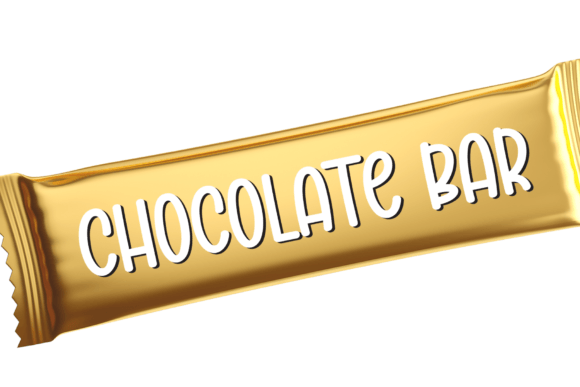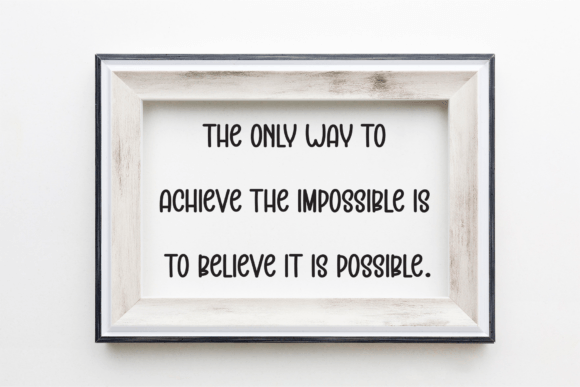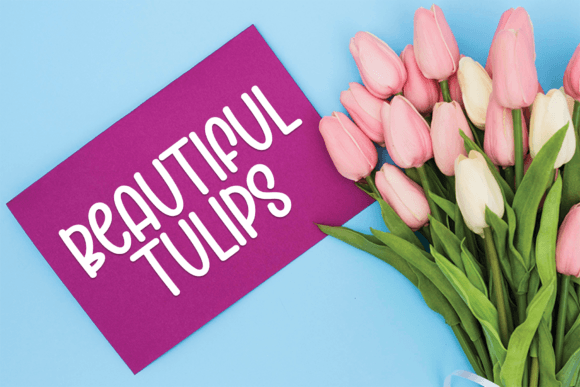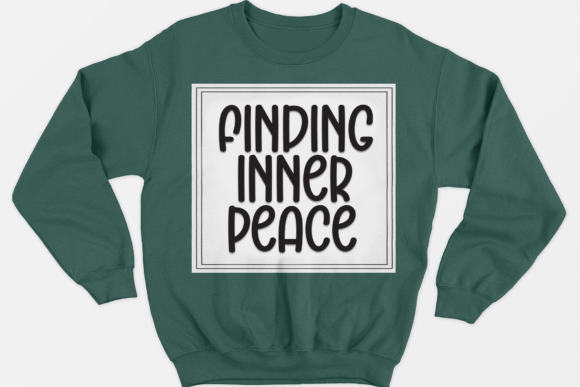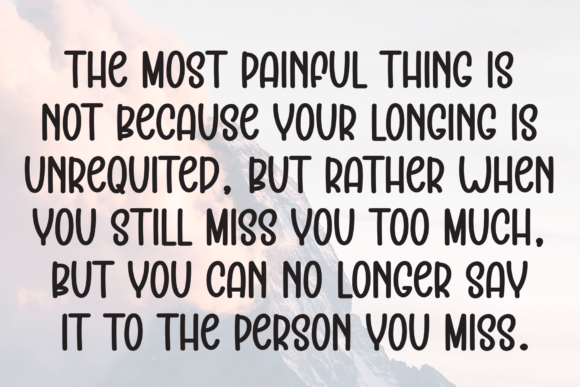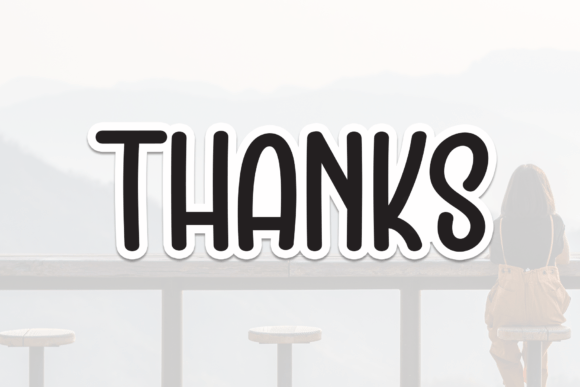
Introduction to Lovely Alone Font
Have you ever found yourself scrolling through a design gallery, searching for the perfect font to elevate your latest creative project? You finally stumble upon a font that captures the essence of your vision – but it’s not just any font. It’s the Lovely Alone Font, a charming handwritten display font that exudes sweetness and friendliness in every stroke.
As a designer, you know the importance of finding the right design resource to take your creative project to the next level. Whether you’re working on a wedding invitation, a personalized card, or any other design project that requires a playful twist, the Lovely Alone Font is sure to captivate and inspire. And the best part? You can download it for free, with a transparent background and high-quality design that will make your work stand out.
Key Features of Lovely Alone Font
• High-quality design resource suitable for creative projects, offering a unique and elegant touch.
• Features a transparent background, allowing for easy customization and layering in design applications.
• Includes a set of 12 unique characters, each carefully crafted to convey a sense of sophistication and style.
• Perfect for use in logo design, branding, and typography-based projects where a touch of elegance is required.
Honest Review: Lovely Alone Font
I recently had the chance to work with the Lovely Alone Font, and I must say it’s been a game-changer for my creative projects. As a designer, I’m always on the lookout for high-quality design resources that can elevate my work. The Lovely Alone Font certainly delivers.
• ✨ Beautiful, hand-drawn style that adds a personal touch to any project
• ✨ High-quality, transparent background that makes it easy to customize and combine with other elements
• ⚠️ Limited character set, which may not be suitable for large-scale projects
• ⚠️ May require additional formatting to achieve the desired look and feel
Overall, I’m really impressed with the Lovely Alone Font. It’s a fantastic addition to any designer’s toolkit, and I’ve already used it in several of my recent projects. If you’re looking for a unique and stylish font to add some personality to your creative project, I highly recommend giving it a try.
Tips for Getting the Most Out of the Lovely Alone Font
Use the Lovely Alone Font for titles, headings, and body text in your creative project.
Experiment with different font sizes and styles to create visual interest.
Combine the Lovely Alone Font with other design elements to create a cohesive look.
The Lovely Alone Font is suitable for a variety of creative projects, including:
Graphic design
Alternatives to Lovely Alone Font
Pacifico is a beautiful, elegant script font ideal for creative projects requiring a touch of sophistication. It features a high-quality design and comes in various styles, including a transparent background option. This font is perfect for wedding invitations, branding, or any design where a refined look is desired.
Compared to Lovely Alone Font, Pacifico has a more formal and classic feel, making it suitable for formal events or corporate designs. It lacks the whimsical, handwritten feel of Lovely Alone Font but offers a unique, high-end aesthetic.